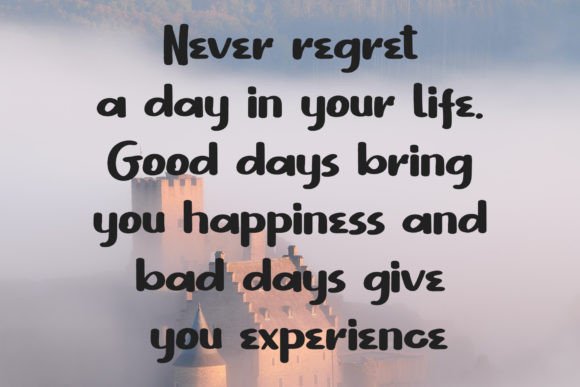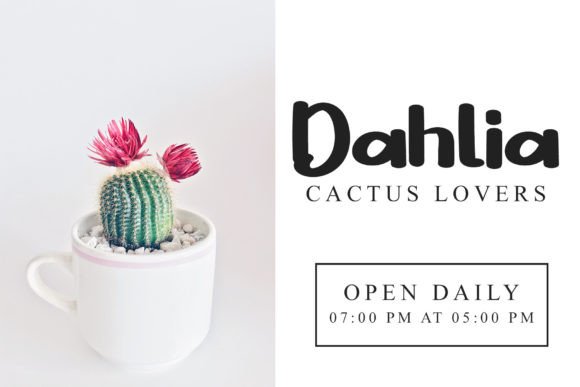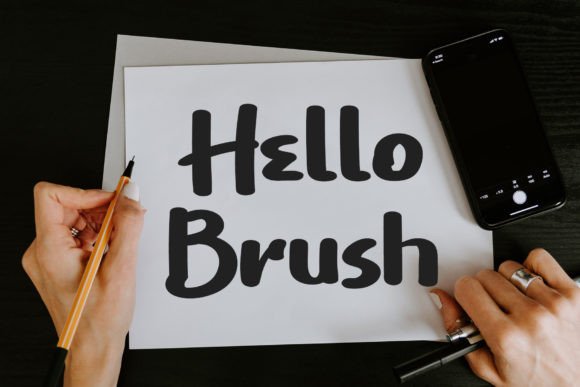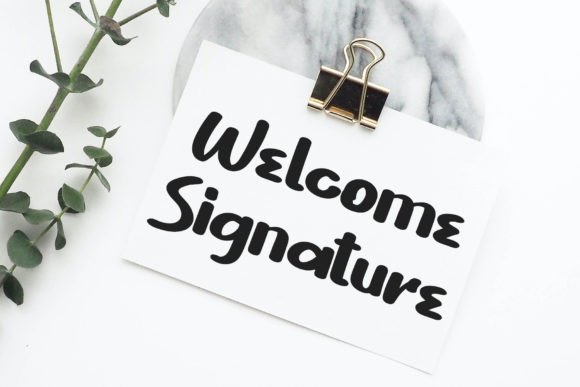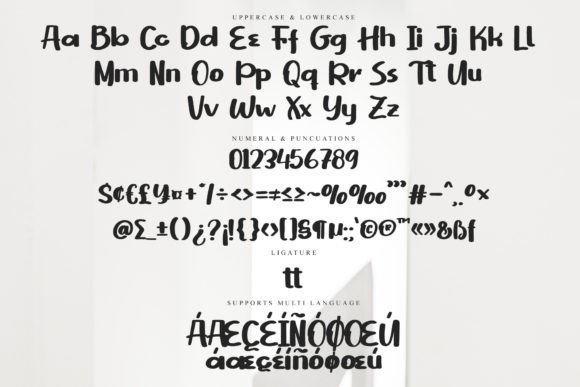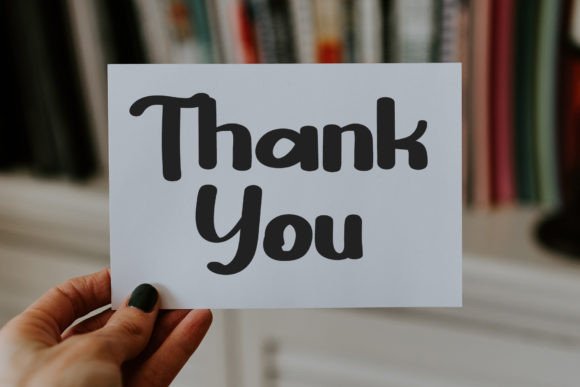
Discover the Charm of Your Hometown, in Font Form
Have you ever been rummaging through old family photo albums or browsing through your childhood neighborhood’s streets, feeling a sense of nostalgia wash over you? That’s exactly the feeling the Hometown Font aims to evoke in your designs. This playful and stylish font is perfect for capturing the essence of a place that feels like home.
As a designer, you’re always on the lookout for that special something to make your projects stand out. The Hometown Font is a versatile tool that can be used for both professional and casual designs, from branding and websites to packaging and social media posts. Its youthful spirit is contagious, making it a valuable addition to any designer’s toolkit.
Hometown Font Key Features
- Font Family: Hometown Font is a unique, custom-designed font family that includes multiple weights and styles, making it ideal for various design applications.
- Size and Resolution: Designed to work well at various sizes and resolutions, from small text to large headlines, and suitable for print and digital applications.
- Unique Characteristics: Features a warm, nostalgic feel with subtle texture and imperfections, giving it a distinct, handcrafted look.
- Weight and Style Options: Includes light, regular, bold, and heavy weights, as well as italic and bold-italic styles, providing flexibility for designers.
Hometown Font Review
Overall, I was quite excited to dive into the Hometown Font. I think what works well is its warm and inviting aesthetic, perfect for creating a cozy and welcoming atmosphere. ✨ The subtle texture and natural feel of the font are reminiscent of handwritten notes, which can add a personal touch to your designs. ✨ Additionally, the font’s versatility makes it suitable for a wide range of projects, from branding to editorial content. ✨
However, I did encounter some limitations. ⚠️ One of the main issues I faced was the font’s readability, particularly at smaller font sizes. The characters can become slightly blurry and lose their definition, which may affect the overall legibility of your text. ⚠️ Another limitation is the limited character set, which may not be suitable for projects that require a vast range of special characters and glyphs. ⚠️
Overall, I think the Hometown Font is a great choice for projects that require a warm and inviting aesthetic. However, designers should be aware of the potential limitations, particularly in terms of readability and character set.
- Warm and inviting aesthetic
- Subtle texture and natural feel
- Versatile and suitable for a wide range of projects
- Readability issues at smaller font sizes
- Limited character set
Use Hometown Font to create a nostalgic and welcoming atmosphere in your designs. Pair it with earthy tones and natural textures to create a cozy feel. Experiment with different font sizes and styles to create visual interest.
Hometown Font is perfect for:
• Creating a welcoming logo for a small town or community
• Designing a rustic wedding invitation or stationery
• Creating a vintage-inspired advertisement or brochure